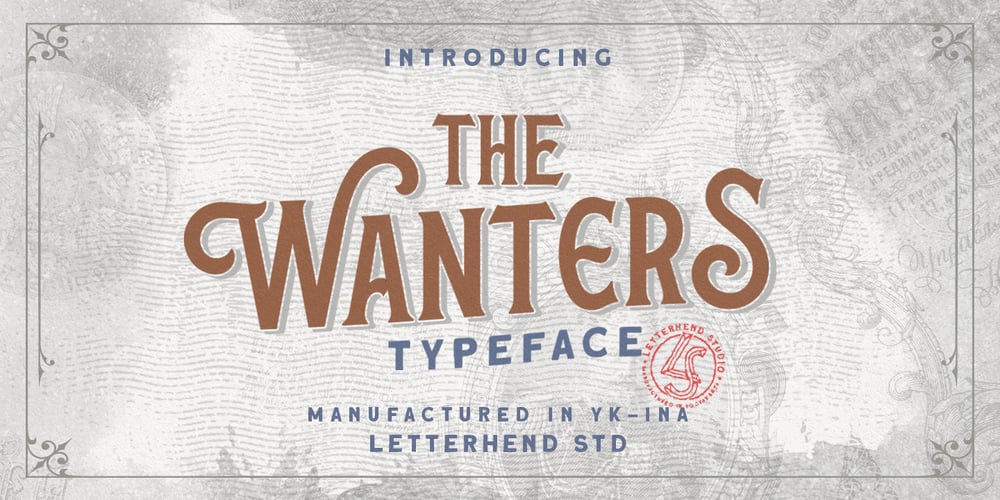
The Wanters Font Family was designed by Hendry Juanda and published by Letterhend. The Wanters contains 1 styles and family package options. Introducing, The Wanters. A vintage display typeface with the touch of nostalgic feel yet still looks luxury in a modern design concept. This typeface has unique looks and strong character with its ornament / swashes. This font perfectly made to be applied especially in logo, and the other various formal forms such as invitations, labels, magazines, books, greeting / wedding cards, packaging, fashion, make up, stationery, novels, labels or any type of advertising purpose.Features : Uppercase & lowercase (alternates) Numbers and punctuation Stylistic alternates multilingual PUA encoded We highly recommend using a program that supports OpenType features and Glyphs panels like many of Adobe apps and Corel Draw, so you can see and access all Glyph variations.Email us to letterhend@gmail.com if you need something! Happy Designing!